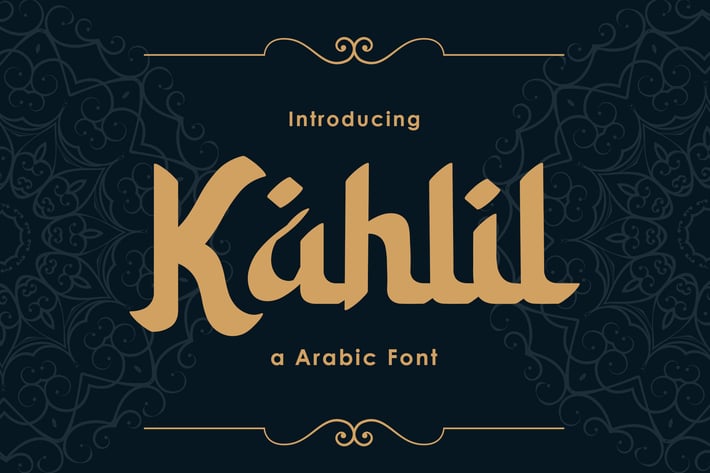
Kahlil - Arabic Font
Kahlil is an Arabic font that is inspired by the theme of Middle Eastern feel, but with enough simplicity to use in modern designs. The font includes a stylistic set and it suits creative titling. Well-balanced letters make for readable blocks of copy or headings.
– Lowercase
– Alternates
– Ligature